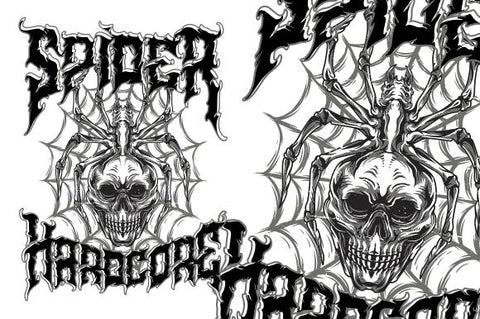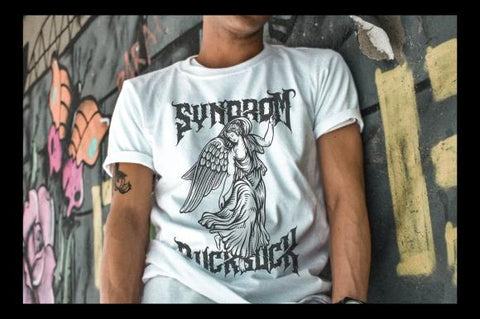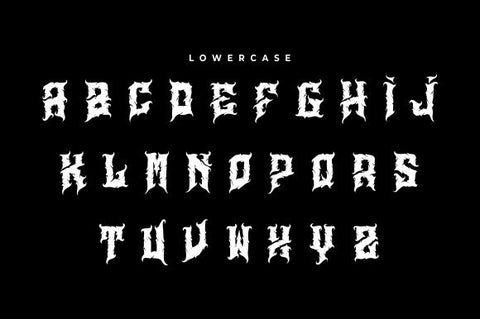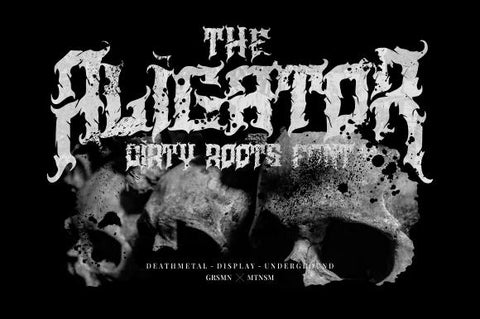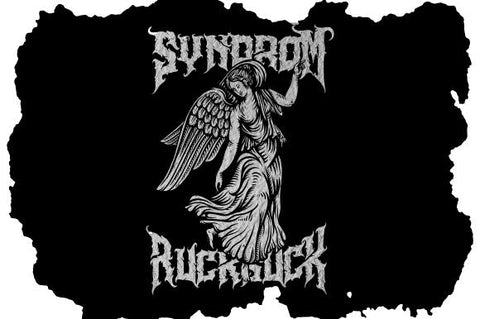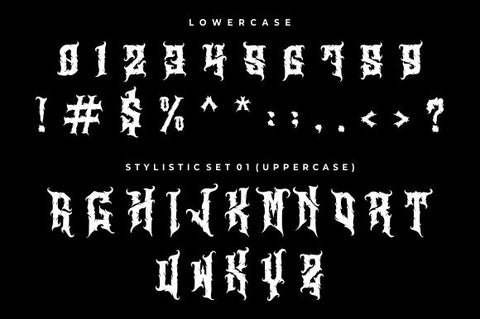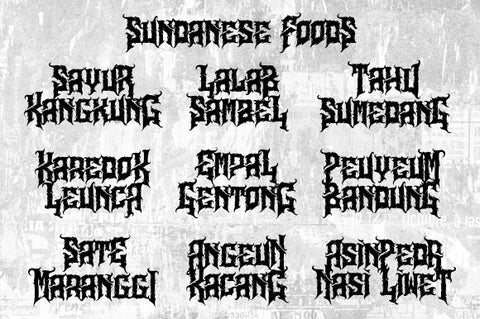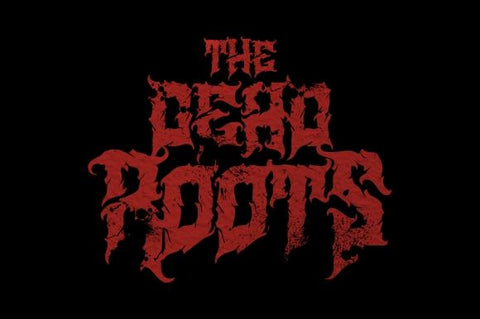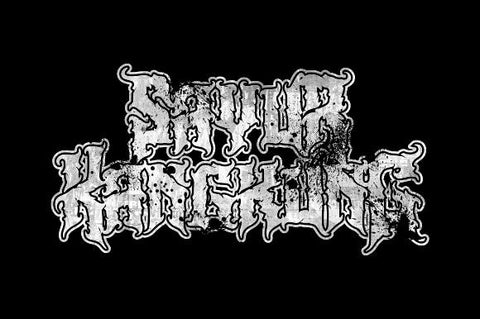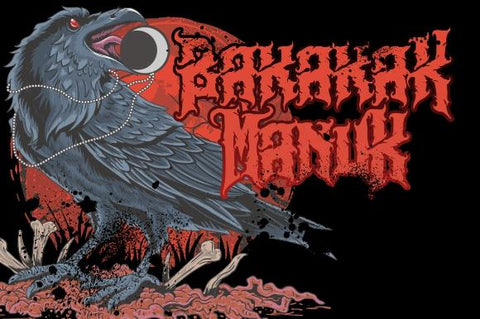
Aligator – Deathmetal Font
Aligator is made in a hard style and is perfect for those of you who need a Deathmetal or Underground theme font. This font is equipped with alternates to adjust the style of the text at the end of words. So it is suitable for death metal music, death metal logo design, clothing, logos, music covers, posters, or other designs with the theme Deathmetal.